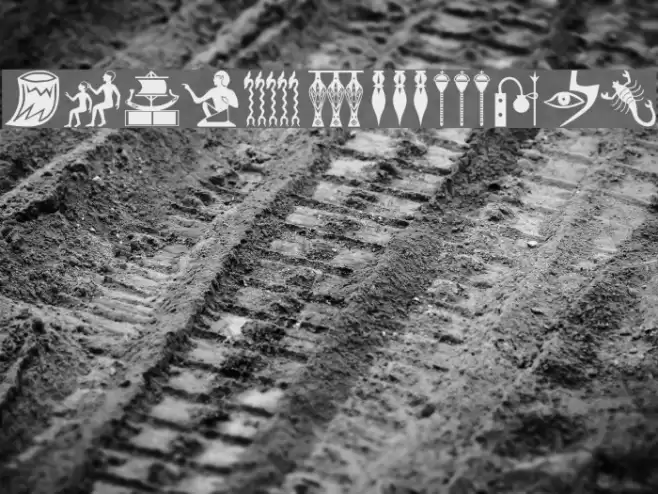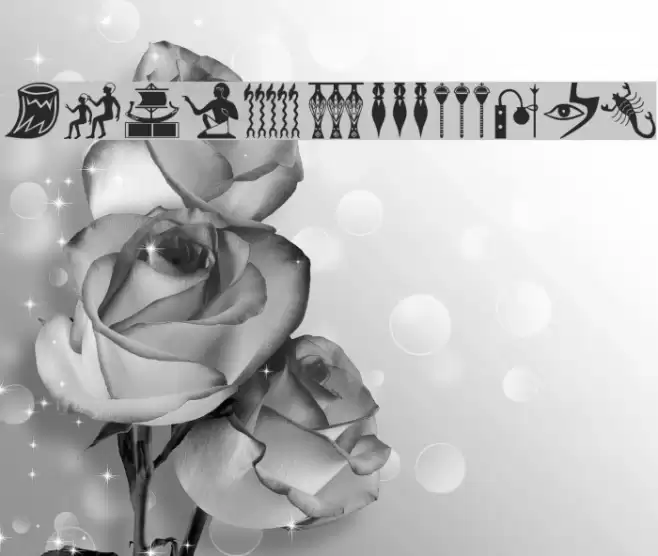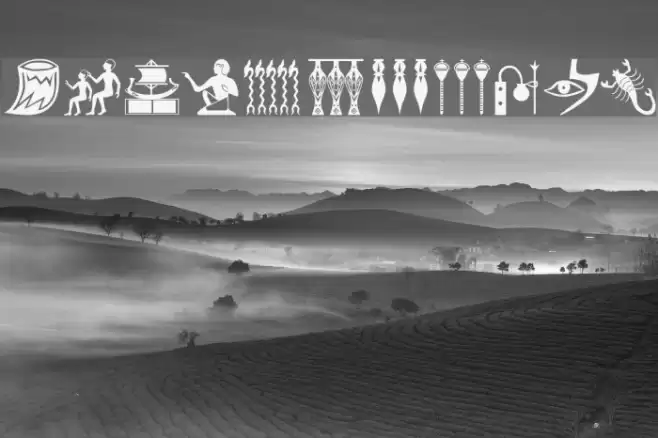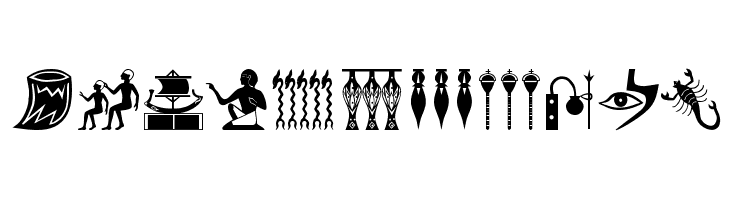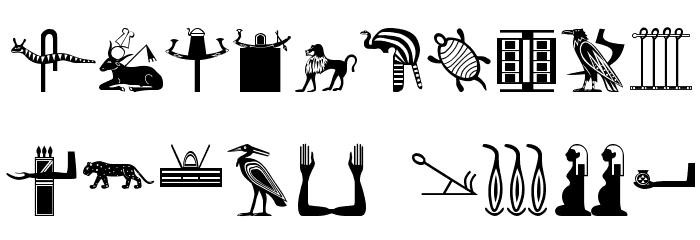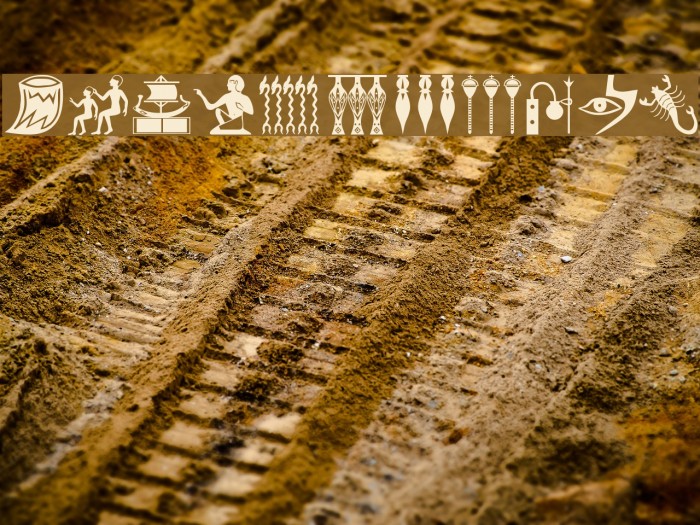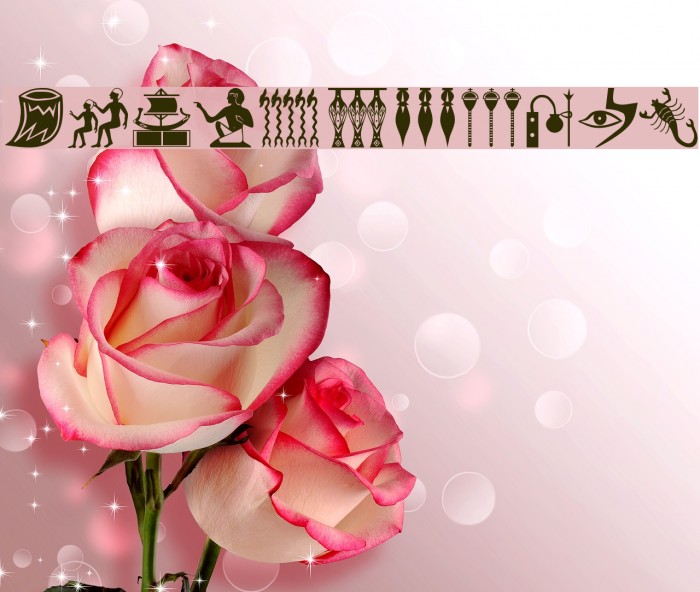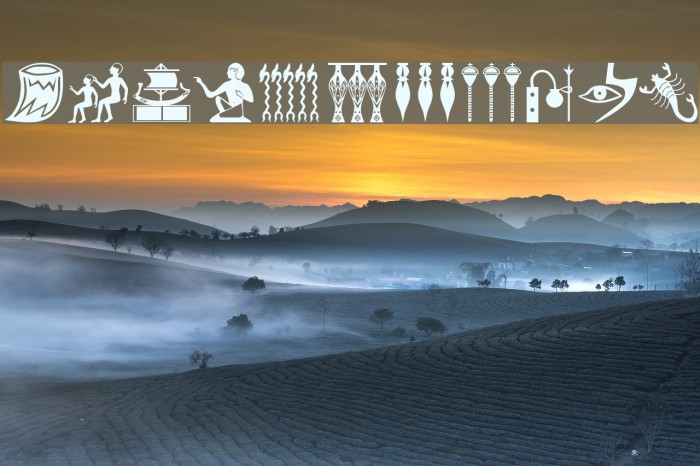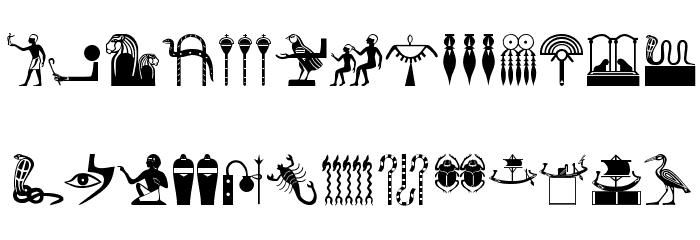
EgyptHieros Font
EgyptHieros Description
A decorative font based on ancient Egyptian hieroglyphs, featuring intricate pictorial symbols representing people, animals, objects, and abstract shapes. Each character is highly stylized and detailed, evoking the look of historical inscriptions.
Pictorial font inspired by Egyptian hieroglyphs from Uncategorized fonts.
- Proposed Projects: Historical displays, educational materials, themed posters, museum signage, decorative art, and creative projects referencing ancient Egypt.
- Overall Style: Decorative, Historical
- Use Case: Logos, Posters, Themed Headlines, Educational Graphics